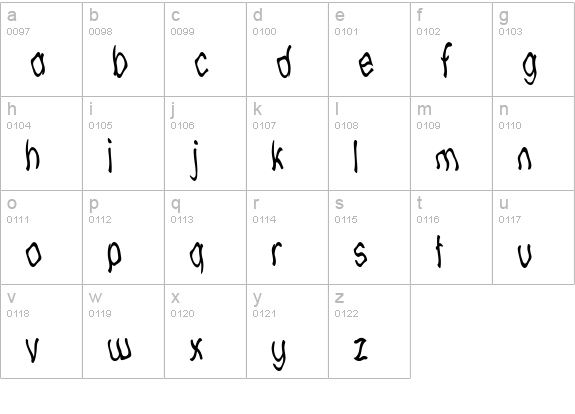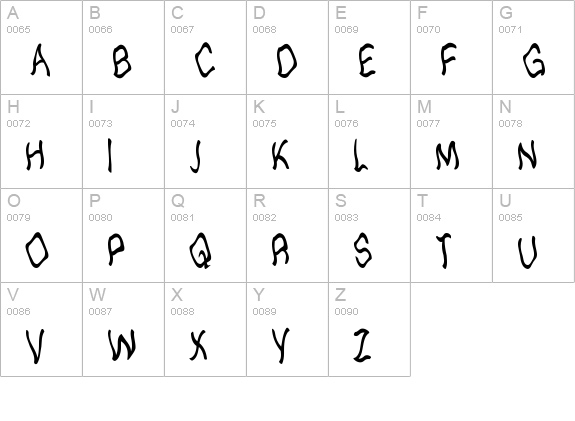
Lost at sea GM Font Details
Lost at sea GM font is a captivating and unique typeface that evokes a sense of adventure and mystery. With its slightly weathered and worn look, this font is perfect for projects that require a touch of nostalgia or a hint of the unknown. The irregular edges and varying line thickness give Lost at sea GM font a handcrafted and authentic feel, making it stand out from the crowd. Best of all, Lost at sea GM font is available for free download at FontsMarket.com. Whether you're working on a vintage poster, a book cover, or a logo design, this font is sure to add character and charm to your project. Don't miss out on the opportunity to enhance your designs with this versatile and eye-catching typeface.